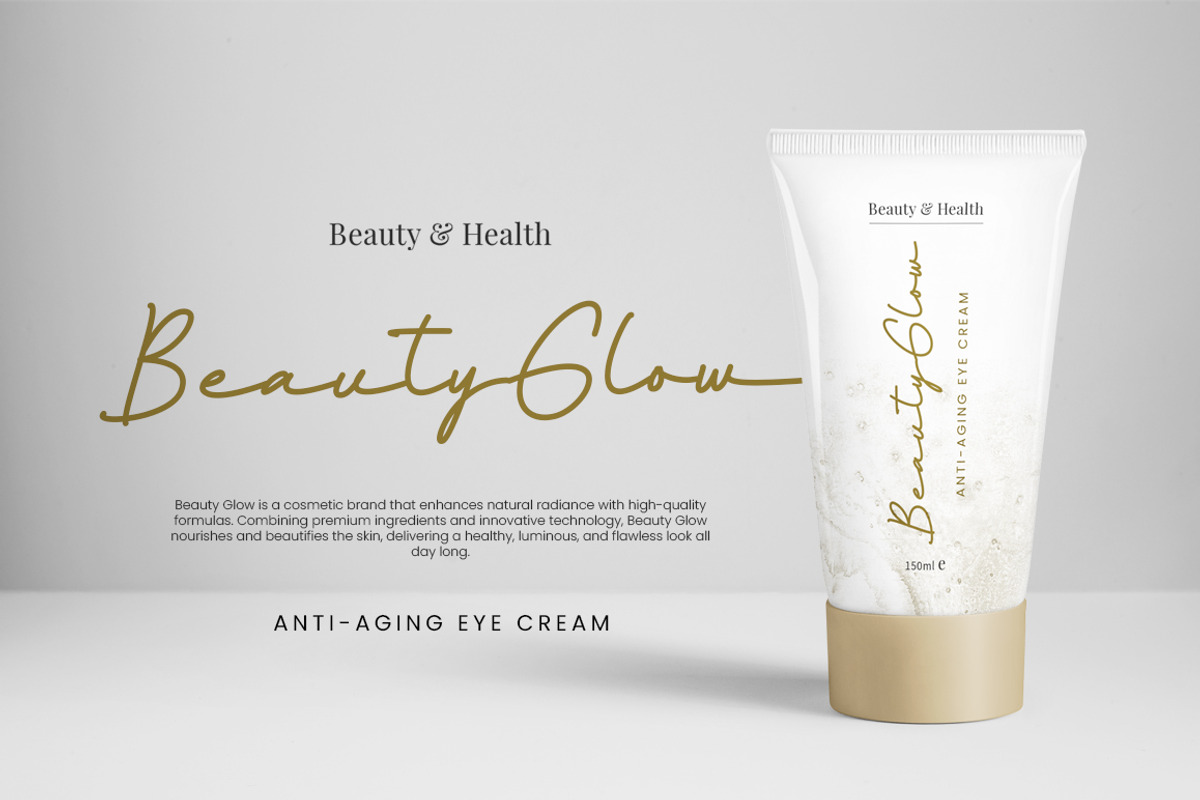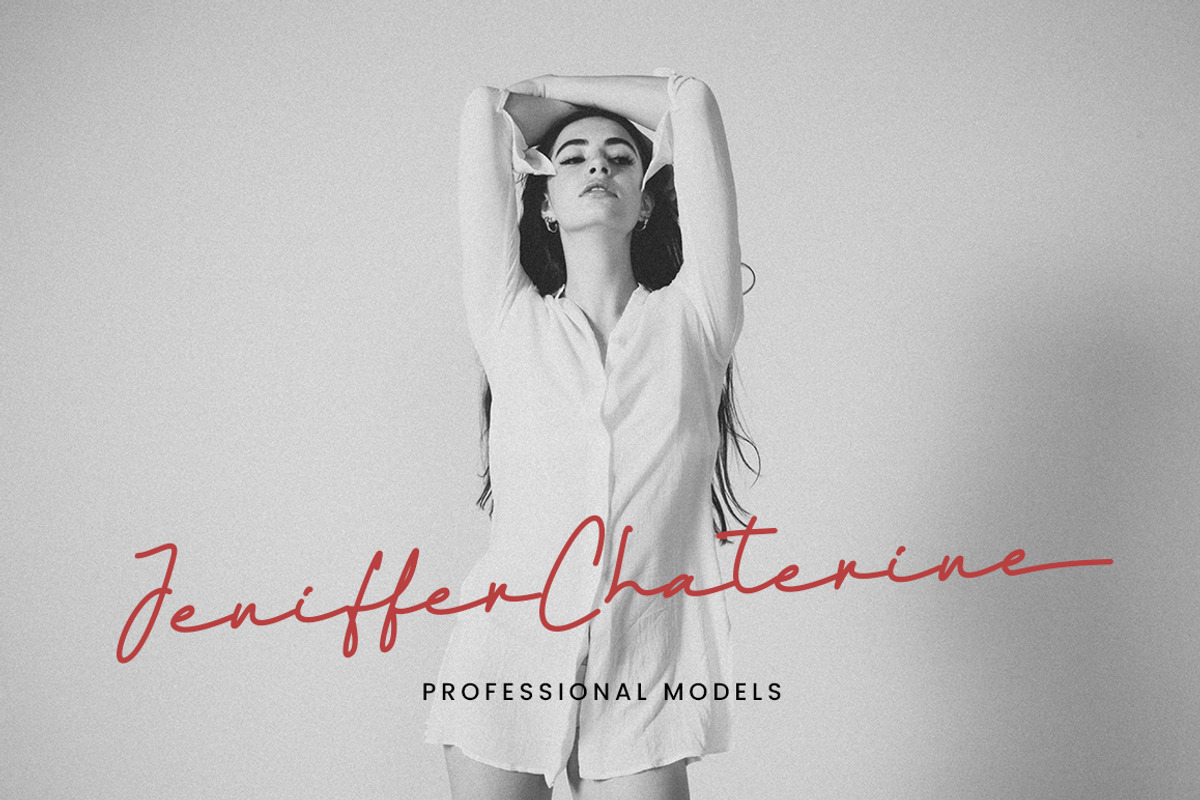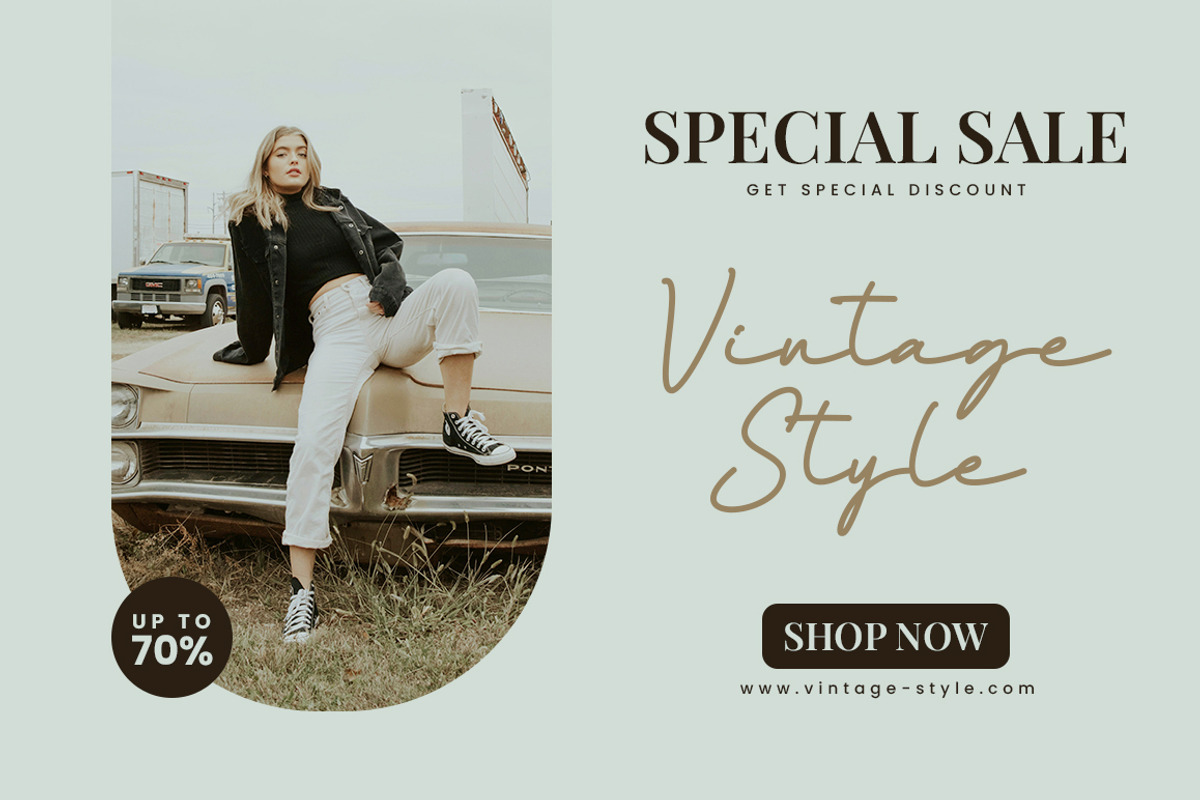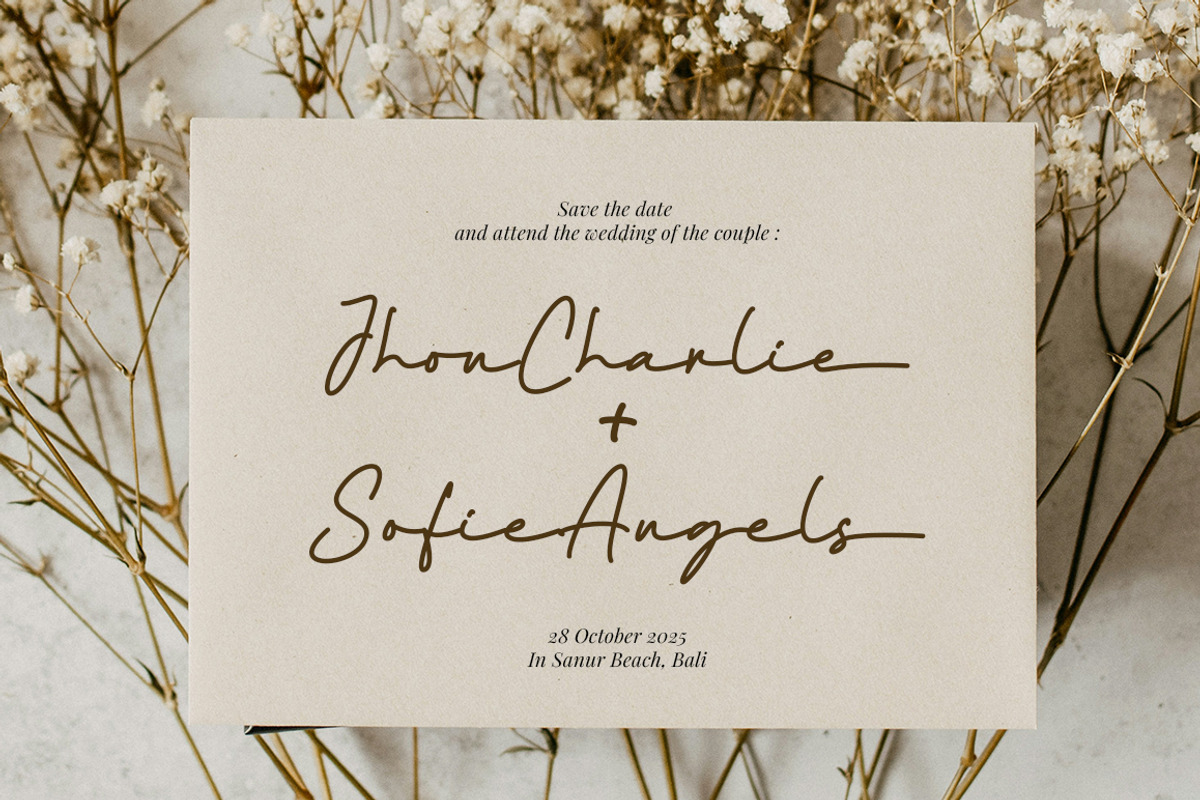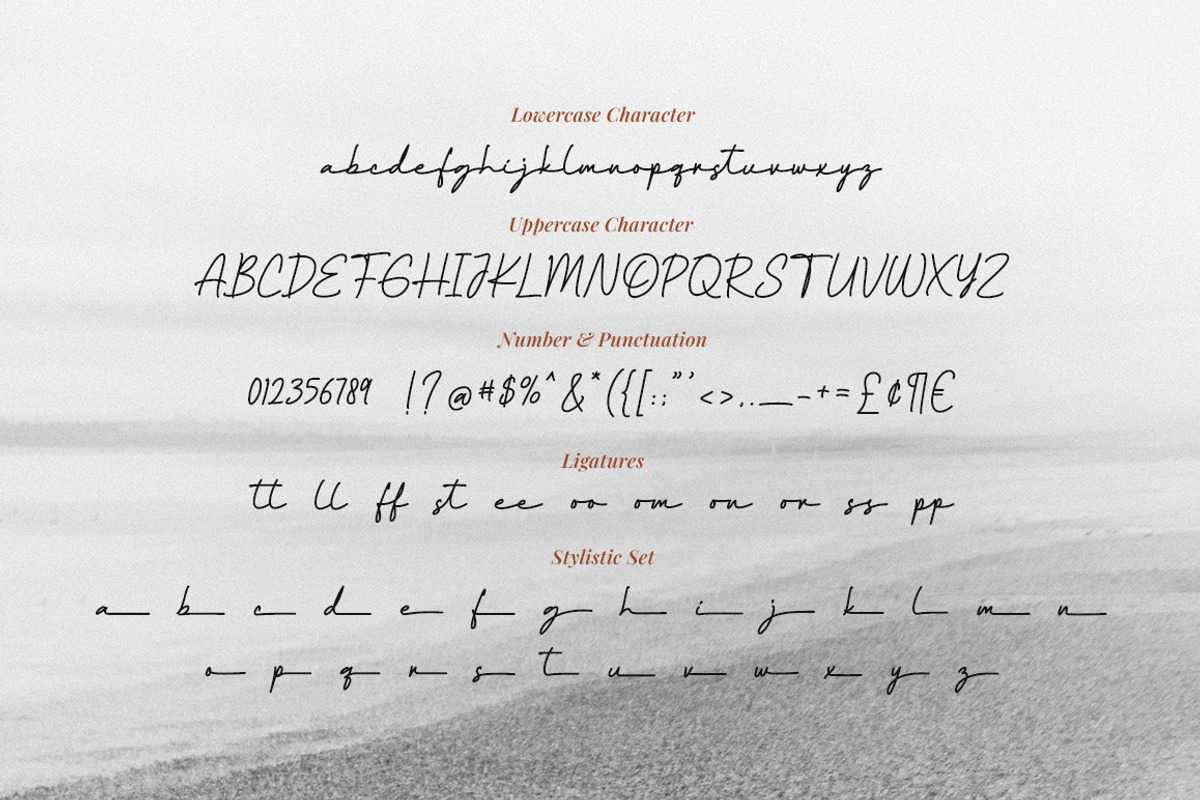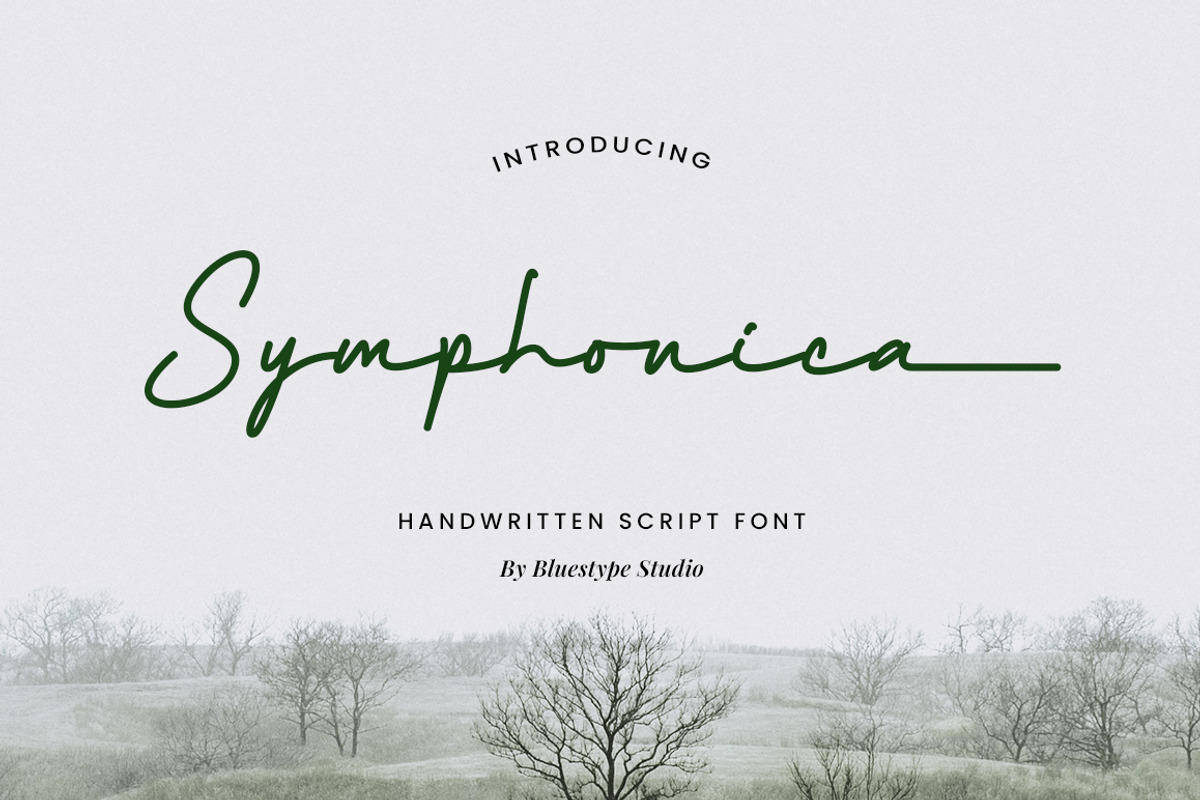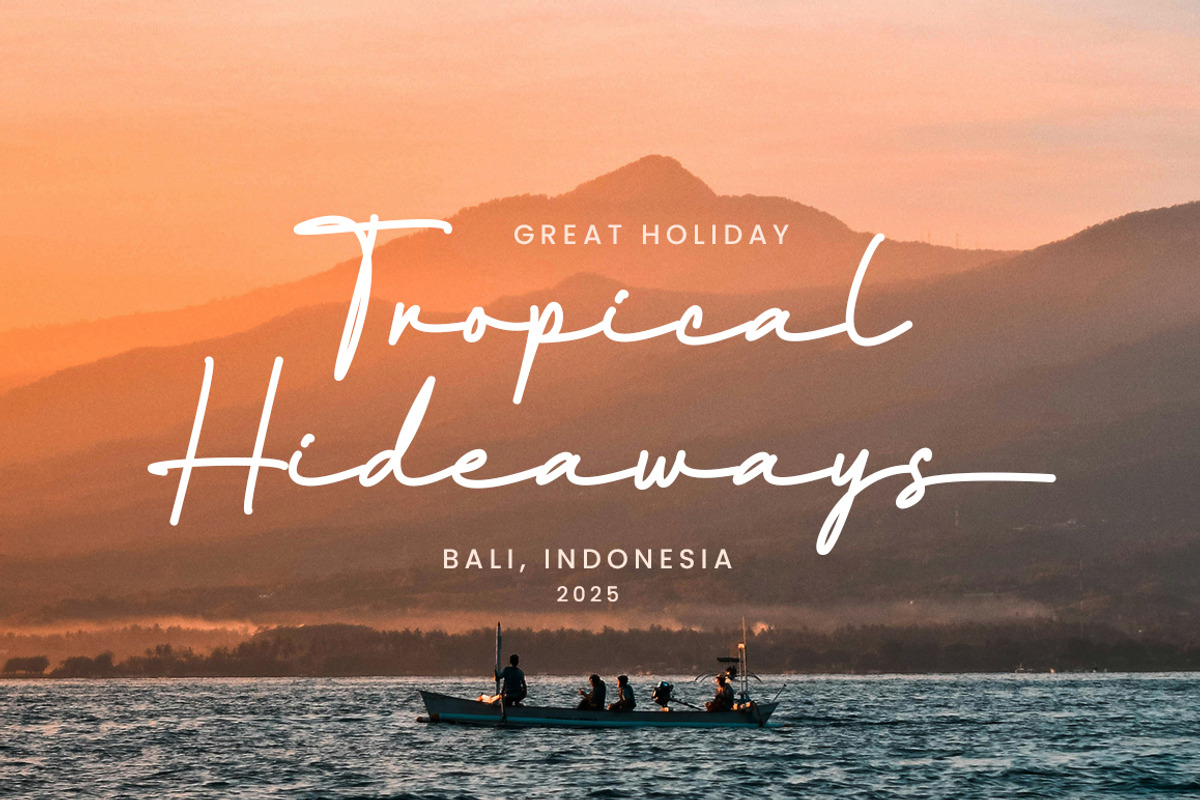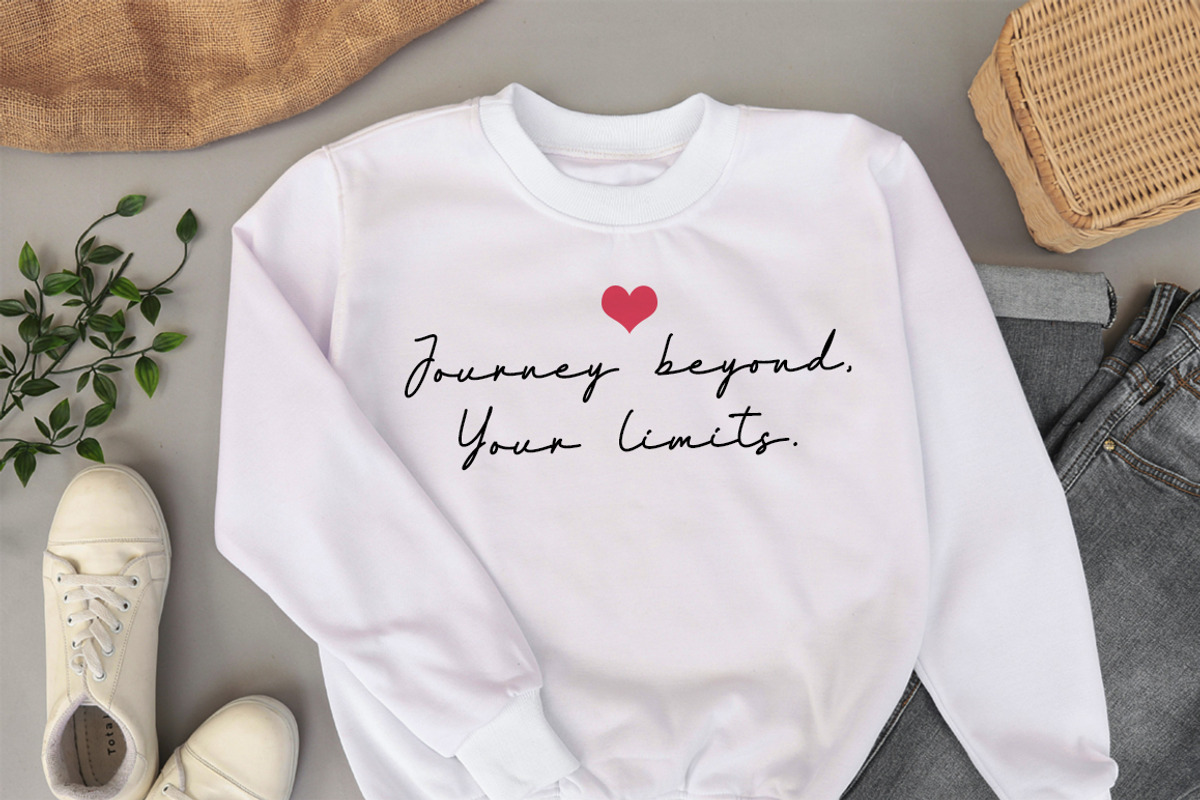
Symphonica - Handwritten Script Font
Introducing Symphonica - Handwritten Script Font
Symphonica – a timeless handwritten font that exudes elegance and sophistication. Inspired by the fluid beauty of classic penmanship, Symphonica brings a touch of grace to every design. Perfect for wedding invitations, branding, logos, and heartfelt quotes, this font captures the essence of tradition while maintaining a modern charm.
Let your words flow like a symphony with Symphonica – where every stroke tells a story. Elevate your designs with the art of classic handwriting today!
- Stylistic Set
- Support Multilingual
- Number & Punctuation